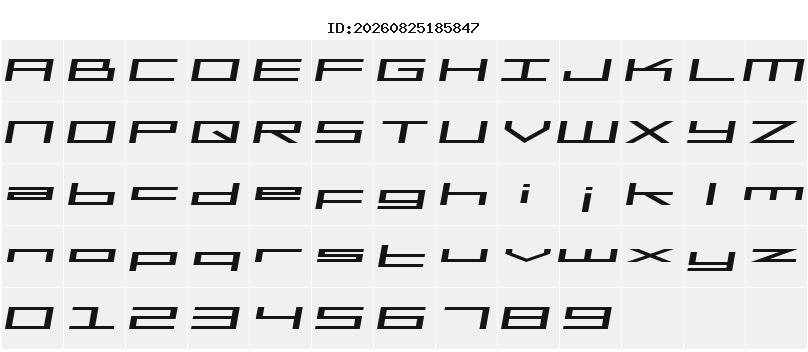
SF Square Head Extended Preview
About SF Square Head Extended.ttf
SF Square Head Extended.ttf is a modern, elegant sans-serif font designed for ultimate readability and visual harmony. Perfect for branding, headlines, web design, and print materials.